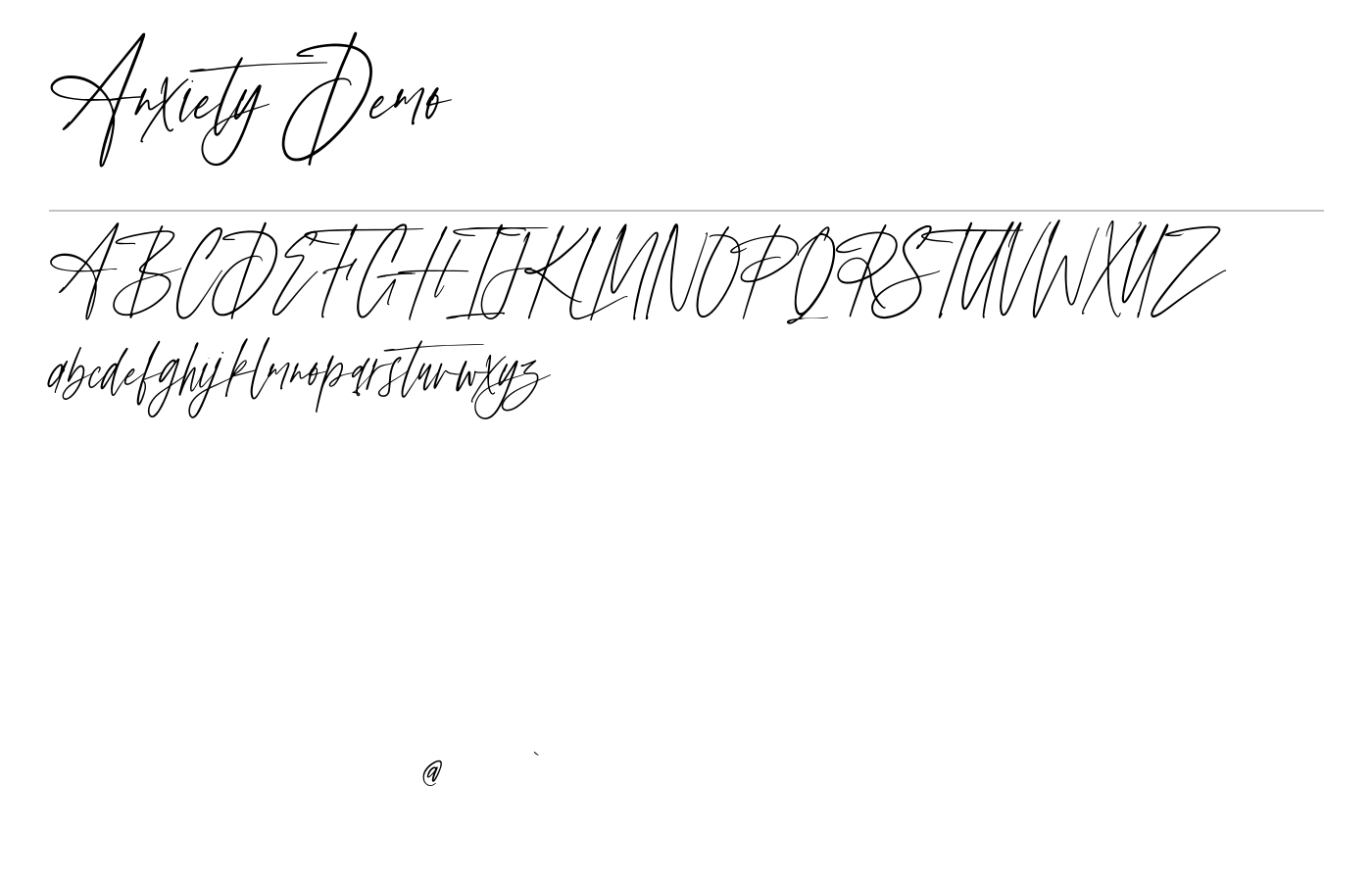
Anxiety Demo is a delicate, expressive script font with a hand-drawn, slightly erratic style that captures a raw and emotional feel. Its tall, narrow letterforms feature fine, flowing strokes with dynamic variations in line weight, making it perfect for artistic projects, personal branding, or designs that aim to convey authenticity and vulnerability. This font excels in headlines, logos, and creative designs where a unique, intimate touch is desired.
Anxiety Demo Font
About Anxiety Demo Font